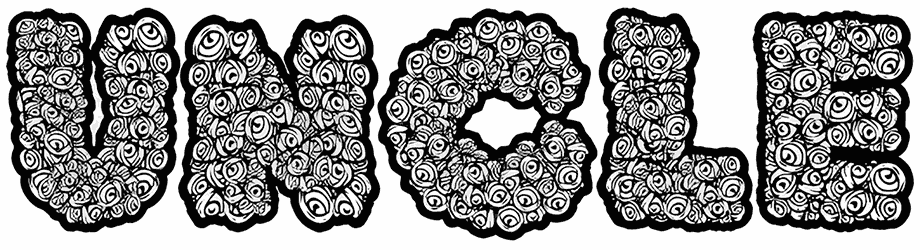
Uncle Font
Uncle font can make your day, and it is considered one of the most wonderful doodle fonts with many flower designs in the texture of the characters. This decorative font doesn’t have lowercase letters and numbers, but th…
Uncle font can make your day, and it is considered one of the most wonderful doodle fonts with many flower designs in the texture of the characters.
This decorative font doesn’t have lowercase letters and numbers, but the capital letters are in two different types, flourish and bold, which can be used in the design of logotypes and advertising posters, and other fantasy designs on children’s t-shirts.